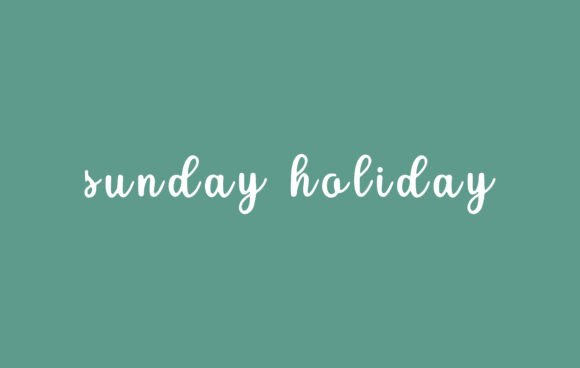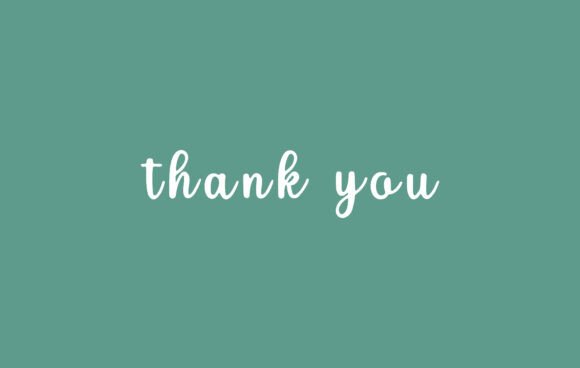
Introducing Calamansi Font: The Perfect Blend of Romance and Authenticity
In the world of typography, fonts play a crucial role in bringing creative ideas to life. For designers and crafters, finding the right font can make all the difference in creating stunning visual content. If you’re on the hunt for a font that exudes romance and authenticity, look no further than Calamansi Font. This beautifully crafted handwritten font is sure to capture your heart and elevate your designs to new heights.
What Makes Calamansi Font So Special?
Calamansi font is an authentic handwritten font that boasts a romantic touch, making it perfect for a wide range of design applications. Expertly designed to be a true favorite among designers, this font has the potential to take your creative ideas to the highest level. Its unique charm lies in its legibility and versatility, making it suitable for use as both title and body text.
Endless Design Possibilities with Calamansi Font
One of the standout features of Calamansi font is its incredible versatility. This font would be perfect for many different designs, including:
- Magazine headlines: Add a touch of elegance and sophistication to your magazine spreads with Calamansi font.
- Social media: Make your social media posts stand out with this beautiful font, perfect for creating engaging and eye-catching content.
- Branding: Establish your brand’s identity with Calamansi font, ideal for creating logos, business cards, and other marketing materials.
- Wedding invitations: Add a romantic touch to your wedding invitations and save the dates with this stunning font.
- Cards: Create beautiful greeting cards, thank you cards, and more with Calamansi font.
Why Choose Calamansi Font?
So, what sets Calamansi font apart from other fonts on the market? Here are just a few reasons why designers and crafters love this font:
- Authentic handwritten feel: Calamansi font has a genuine, handwritten feel that adds a personal touch to your designs.
- Romantic touch: This font exudes romance and elegance, making it perfect for wedding-related designs and other projects that require a touch of sophistication.
- Legible and versatile: Calamansi font is easy to read and can be used for both title and body text, making it a versatile addition to your font collection.
Tips for Using Calamansi Font Effectively
To get the most out of Calamansi font, here are a few tips to keep in mind:
- Pair with complementary fonts: Combine Calamansi font with other fonts that complement its style to create visually appealing designs.
- Experiment with colors: Try pairing Calamansi font with different colors to add depth and interest to your designs.
- Use for emphasis: Use Calamansi font to draw attention to important text or to add emphasis to key messages.
In conclusion, Calamansi font is a beautiful, authentic handwritten font that is sure to capture the hearts of designers and crafters alike. With its romantic touch, legibility, and versatility, this font is perfect for a wide range of design applications. Whether you’re creating magazine headlines, social media posts, or wedding invitations, Calamansi font is sure to elevate your designs to new heights. So why wait? Add Calamansi font to your collection today and start creating stunning visual content that will leave a lasting impression.